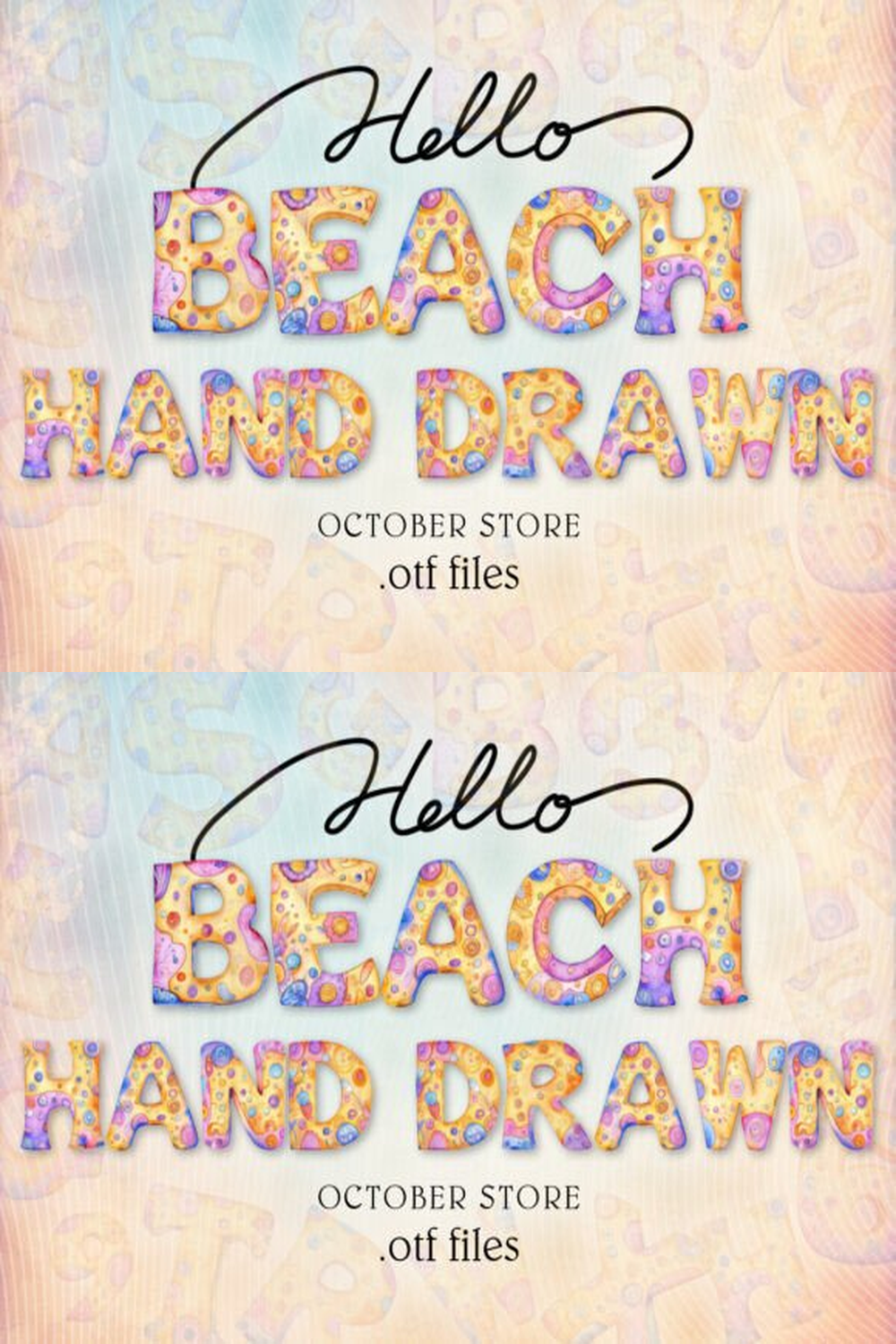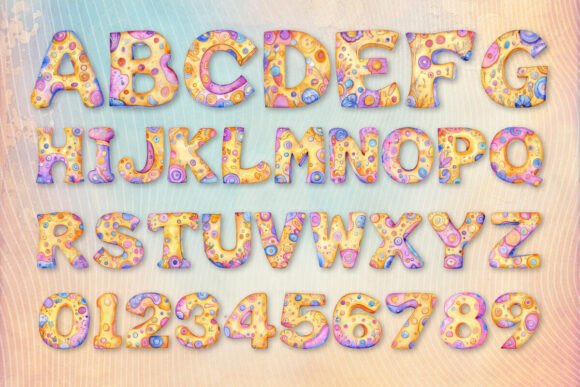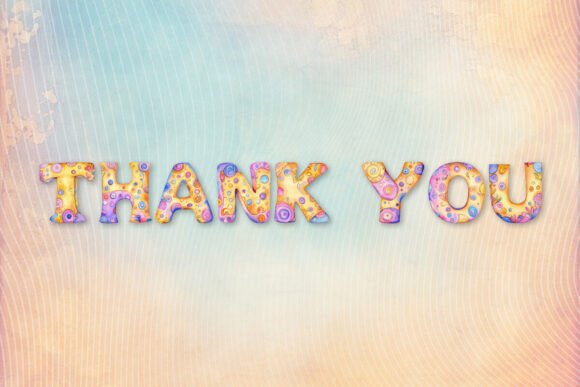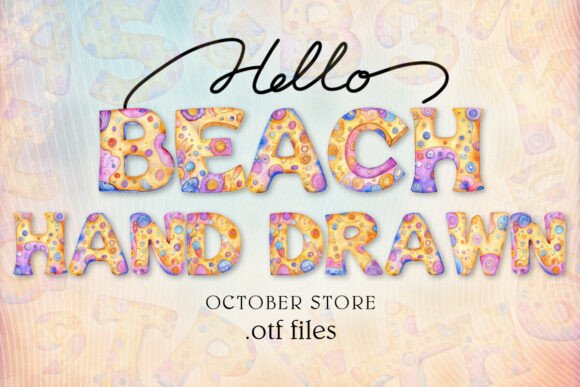
Hand Drawn Beach Font
About the Hand Drawn Beach Font
Let us introduce you to Hand Drawn Beach Font, where timeless design meets modern craftsmanship. Designed with the magic of summer and the beach in mind, the Hand Drawn Beach Summer Alphabet Font encompasses a delightful collection of 36 unique characters. Containing both 26 carefully created letters and 10 digits, this font captures the playful spirit of a child’s hand drawn artwork. The charismatic font doubles as a coloring book and offers a perfect blend of whimsical beach and summer theme, infusing creativity and fun into any design. It’s not just a typeface – it’s a summer story waiting to unfold on your craft project.